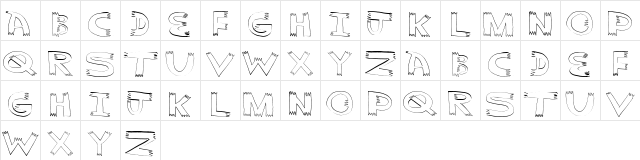
pointy Regular
Design Context for pointy
pointy is a composed and adaptable typeface that performs quietly and consistently across a wide range of design contexts.